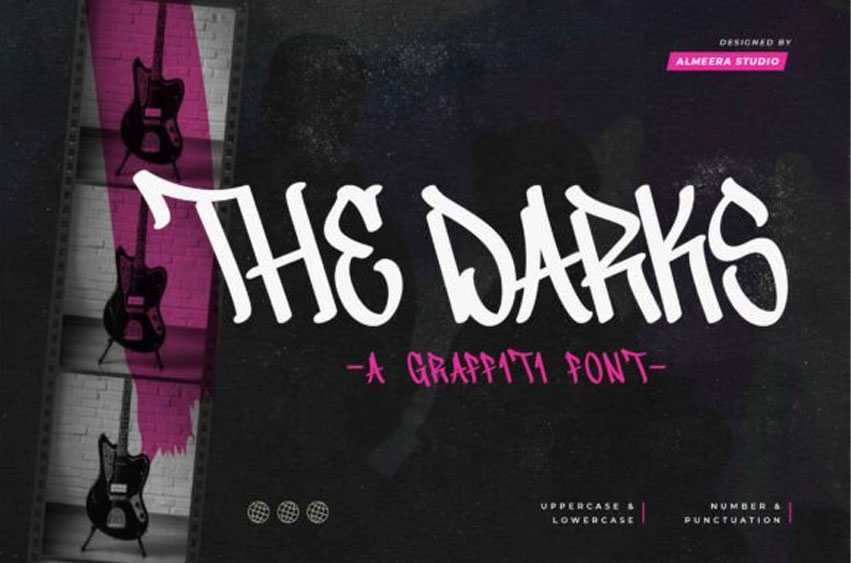
The Darks Font is a high-energy, authentic graffiti typeface that captures the raw, spontaneous spirit of street art with its bold, rounded letterforms and dynamic flow.
This display font simulates the look of a wide marker or paint can, featuring chunky, rapid strokes that maintain an edgy, rebellious attitude.
The Darks typeface is the perfect choice for projects requiring a powerful, urban aesthetic, such as hip-hop music covers, streetwear apparel branding, skate culture posters, and energetic social media graphics. Despite its hand-painted style, the Darks font ensures excellent readability for headlines and titles, making it a professional tool for creating impactful, youth-focused visuals.
Including full uppercase, lowercase, and punctuation, this modern graffiti font provides everything needed to inject a dose of genuine street authenticity and raw creative expression into your designs.